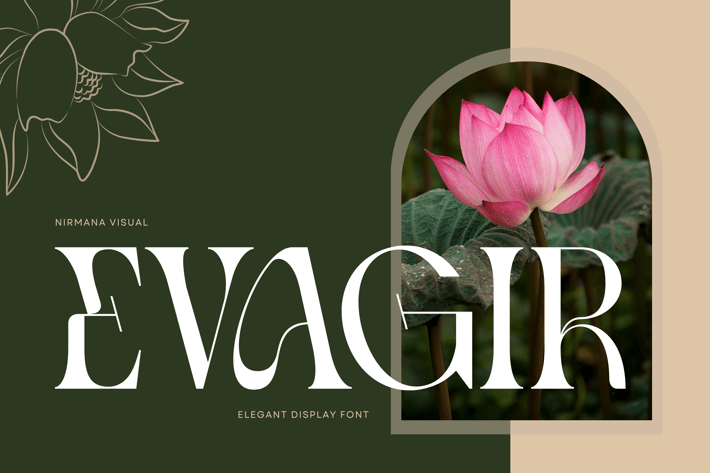
Evagir - Elegant Logo Font
Evagir Font offers beautiful typographic harmony for a diversity of design projects, including logos & branding, social media posts, advertisements & product designs.